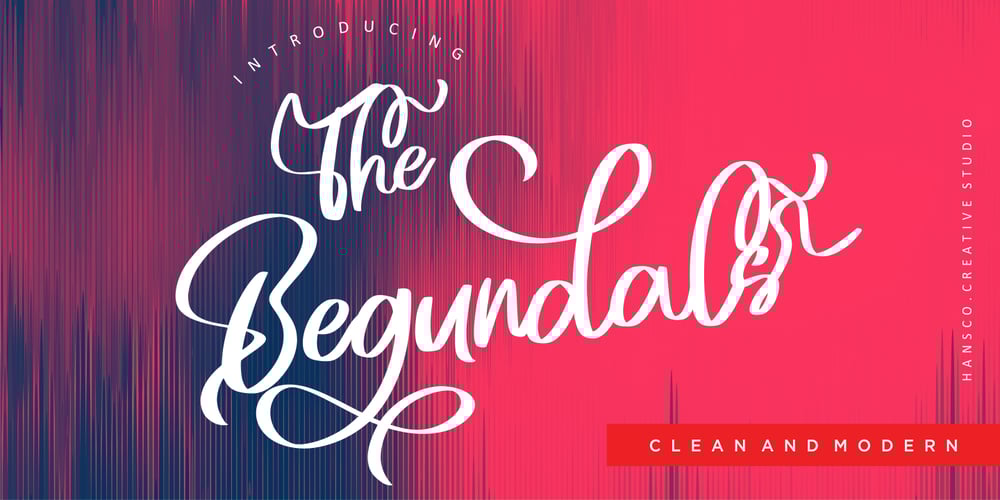
The Begundals Font Family was designed by Burhan Afif and published by HansCo. The Begundals contains 1 styles and family package options. The Begundals is a modern brush script font in hand lettering style. This font looks cool in any design and is very recommended for craft, posters, books, branding, quotes, print templates, packaging, invitations or anything else that needs a unique and fun touch. The Begundals comes in uppercase and lowercase, with punctuation, symbols, numerals, stylistic alternate sets, ligatures, and also has multi-lingual support. You can access all alternates from your OpenType panel in your design software.Tutorial how to Install & use Alternate / Special Character : https://hanscostudio.com/tutorial/Enjoy!